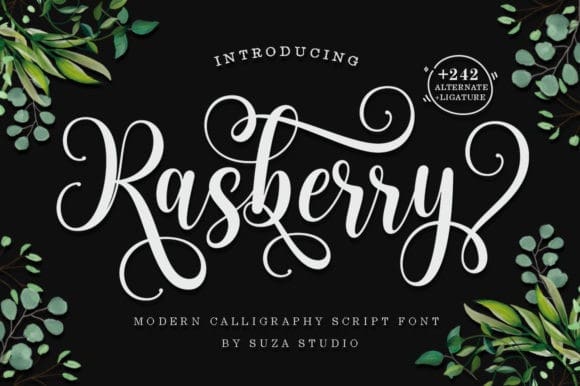
Rasberry Font
Rasberry Font is an exquisite handwritten font, masterfully designed to become a true favorite. This font is PUA encoded which means you can access all of the amazing glyphs and ligatures with ease!